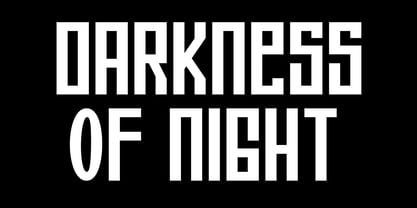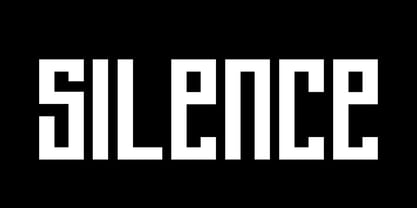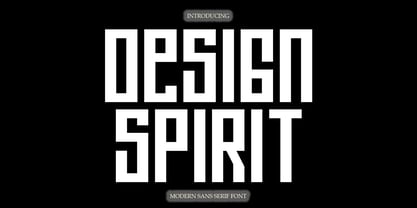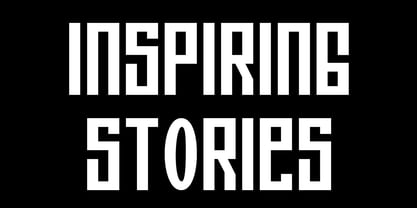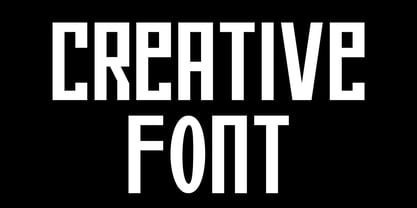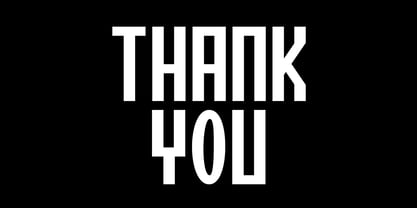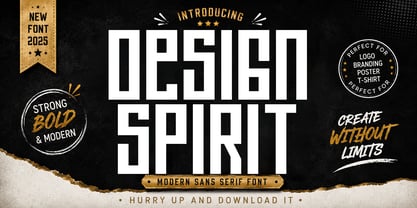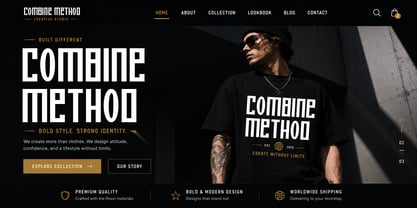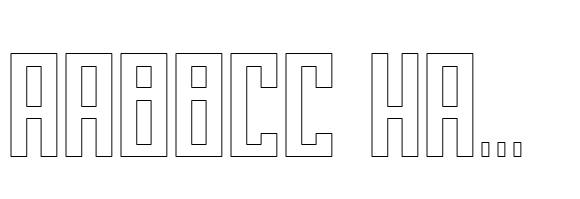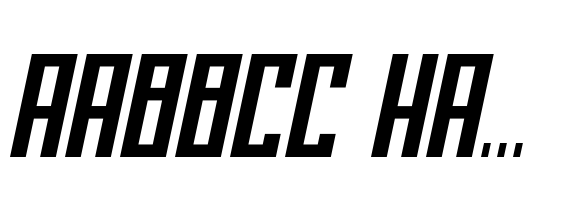
Design Spirit
DESIGN SPIRIT is a modern condensed sans serif designed to bring bold, sporty energy to your creative projects. With its confident, compact letterforms and sleek style, DESIGN SPIRIT is perfect for powerful branding, athletic-inspired logos, poster headlines, and striking social media graphics.
The Regular style features strong, modern shapes with a clean and streamlined silhouette, while the Italic style adds a dynamic sense of movement — perfect for designs that demand a sense of speed and performance. DESIGN SPIRIT versatility makes it easy to adapt for everything from sports campaigns to urban branding and contemporary editorial layouts.
From energetic event posters to powerful wordmarks, DESIGN SPIRIT helps your typography deliver a bold, modern statement.
Features:
* Modern condensed sans serif with sporty character
* Two styles: Regular • Italic
* Uppercase & lowercase letters
* Numerals & punctuation
Give your words a bold and athletic presence — with DESIGN SPIRIT.